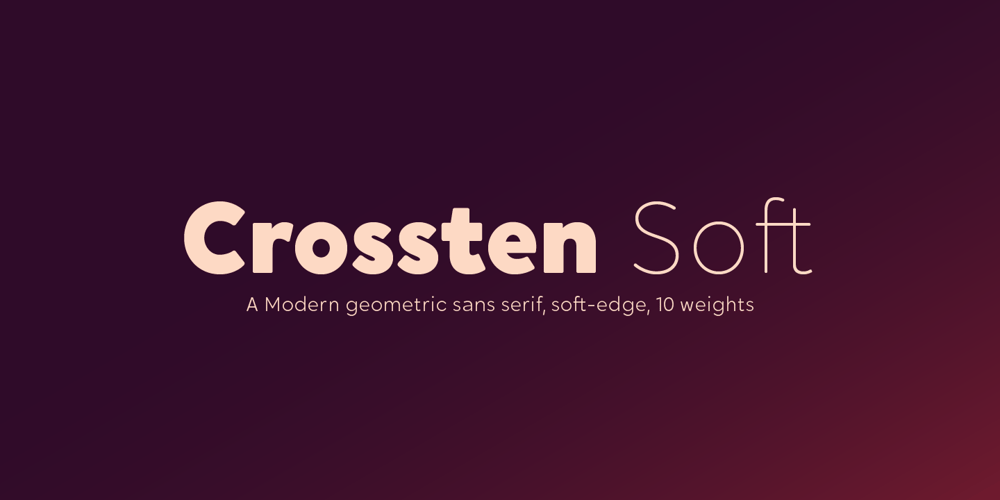
Crossten Soft Font Family was designed by Emre Güven and published by Emre Güven. Crossten Soft contains 20 styles and family package options. Crossten Soft�s �modern geometric sans� family consists of 20 fonts.All family fonts contain 370 glyphs and are equipped with many typographic features.Crossten Soft is designed for those who prefer to use single-coded fonts not only in coding but also in many different graphic design environments. Idea; It came from creating a font with a single-spaced aesthetic, without breaking the soft, single-spaced fonts.Crossten Soft is a geometric sans single-spaced font with all typographic features except space and character spacing.